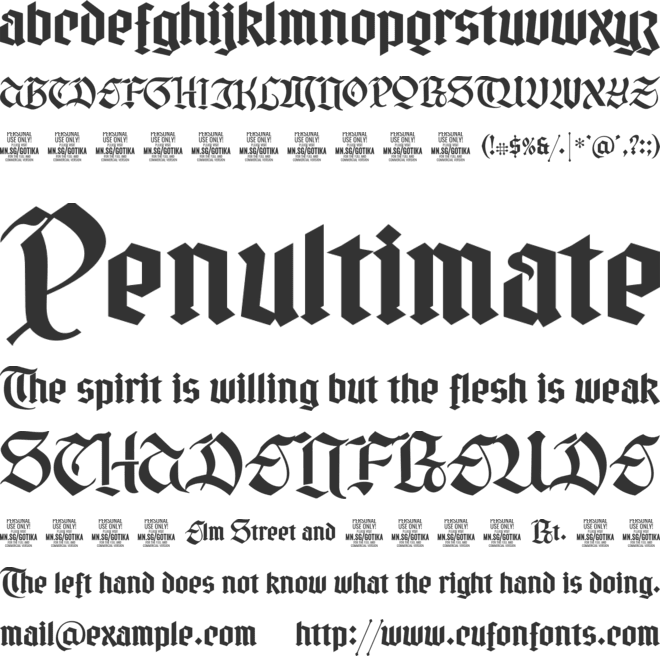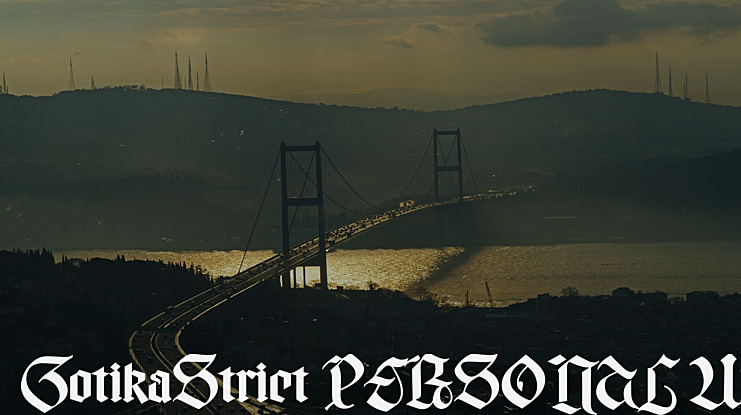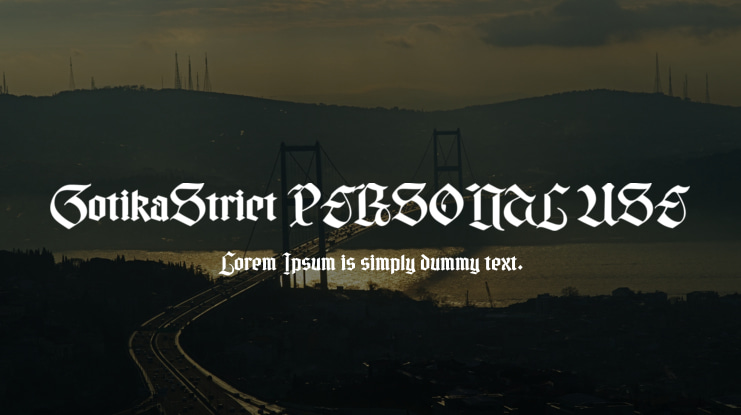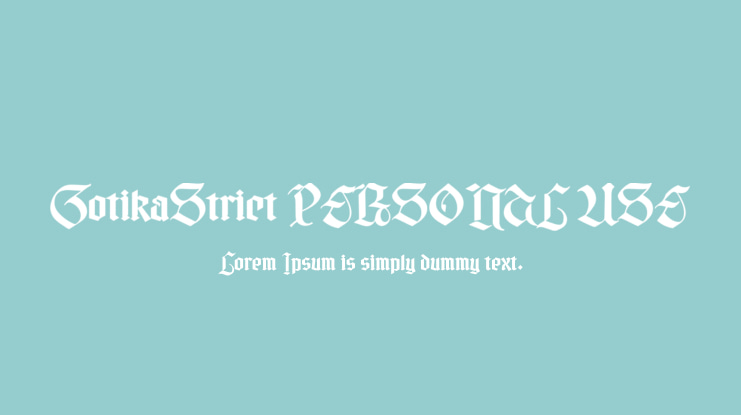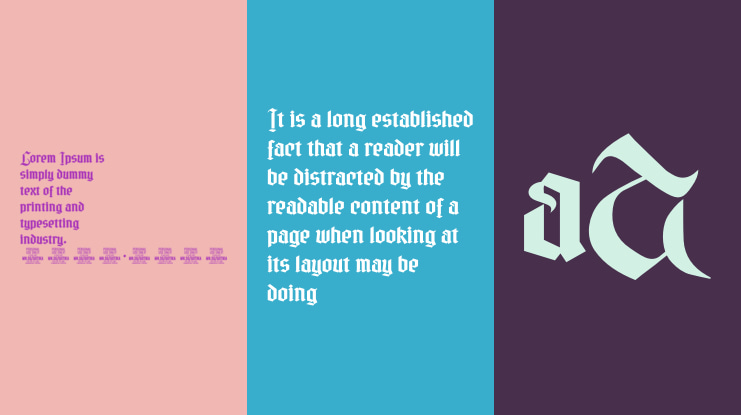
Gotika Strict PERSONAL USE Font
Inspired by ancient manuscripts and the unique geometry found in medieval architecture, Gotika Strict is merging old-world charm with contemporary sensibilities.